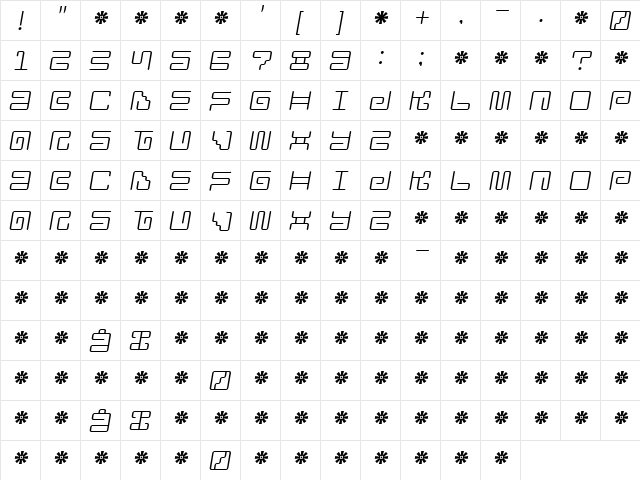
Iron Lounge 2 Regular
Design Context for Iron Lounge 2 Typeface
Iron Lounge 2 is a composed and adaptable typeface that performs quietly and consistently across a wide range of design contexts.